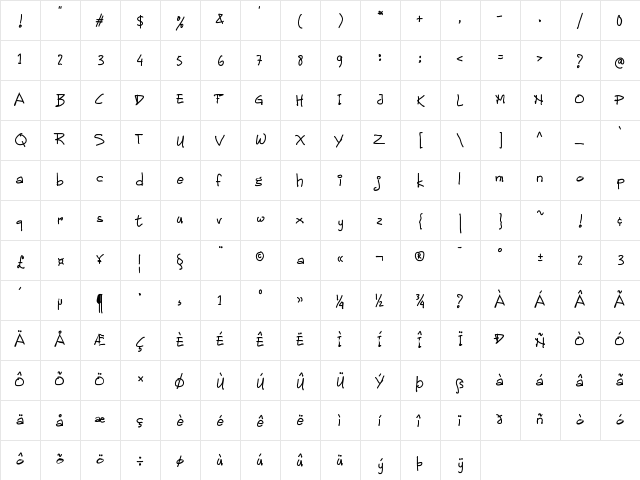
Children Handwritten Regular
Design Context for Children Handwritten Typeface
Children Handwritten trades formality for fun, with bouncy, characterful letterforms that bring warmth and energy to any project.
Font Pairing: Pairs well with a rounded or humanist sans for body copy, maintaining the friendly tone without relying on Children Handwritten to carry extended reading.
Pro Tip: Use Children Handwritten at larger display sizes where its expressive character can land. Pair with a clean, simple sans for body copy to maintain readability.